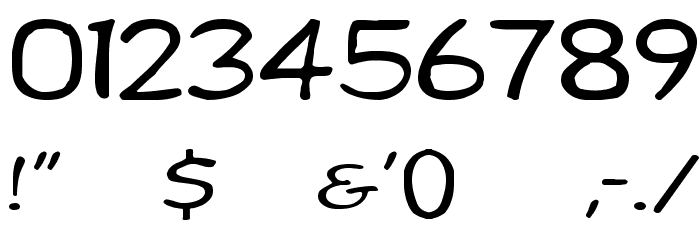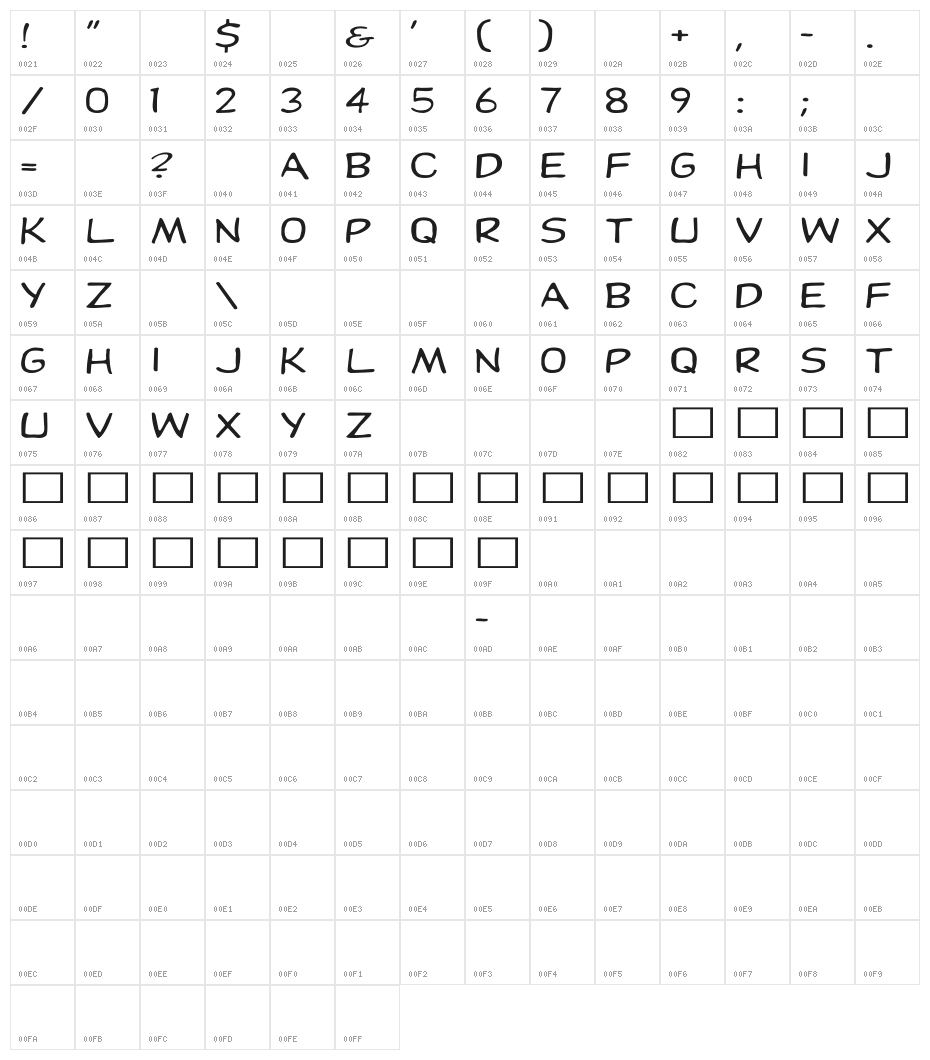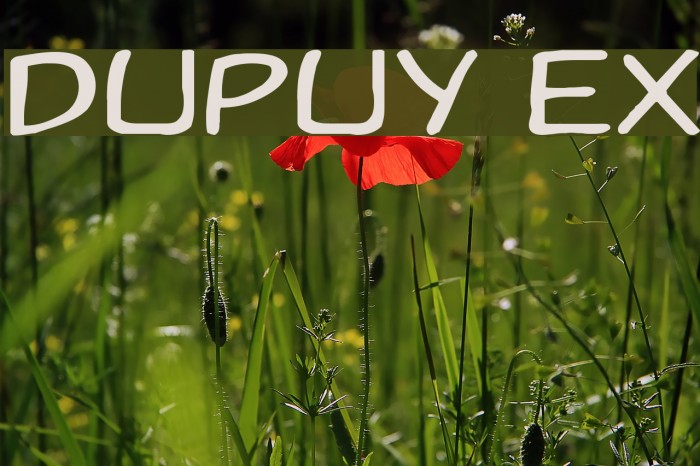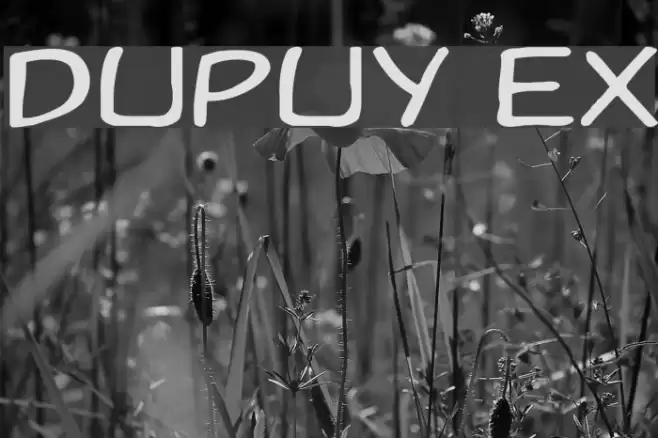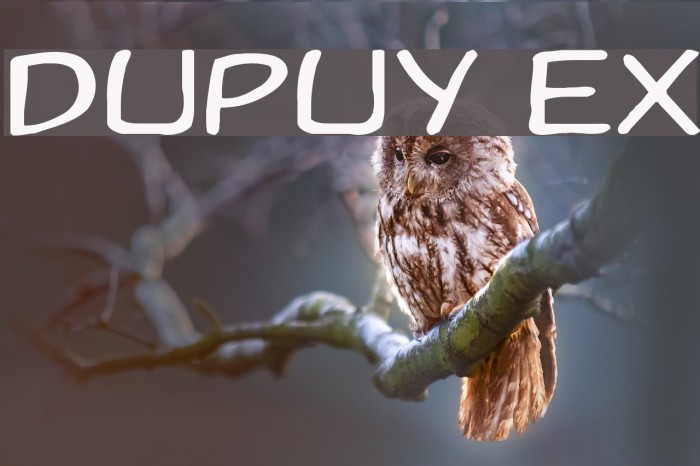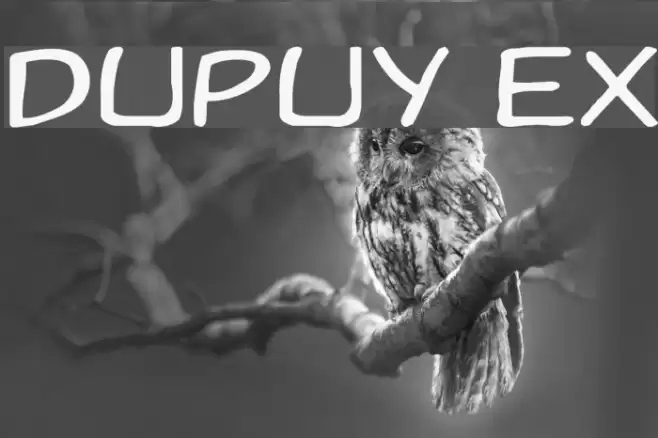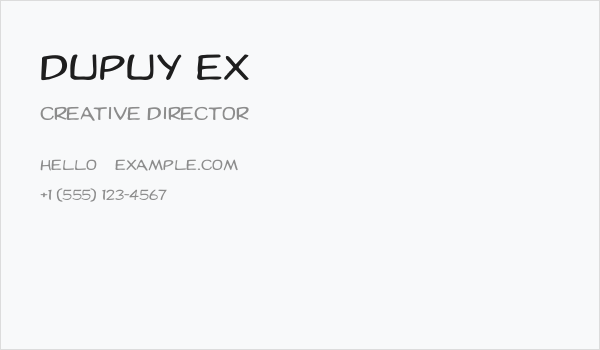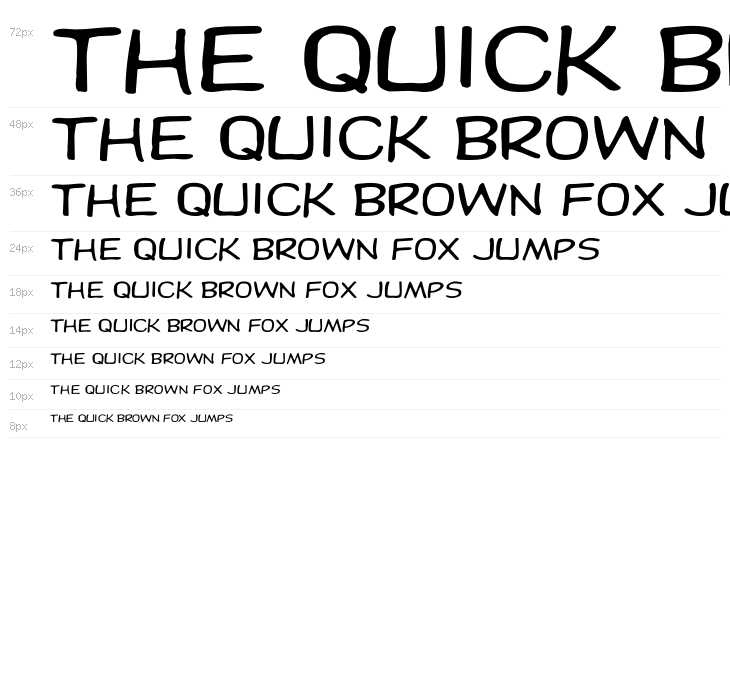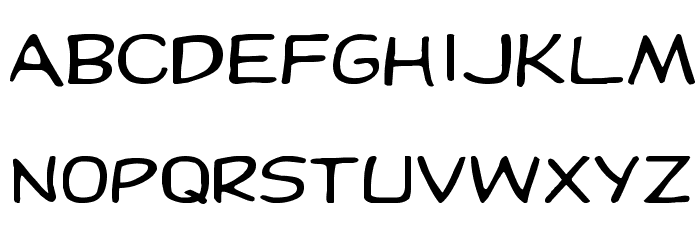
Dupuy Ex Font
Dupuy Ex Description
This font features a playful and casual handwritten style, characterized by its smooth curves and slightly irregular strokes. The letters are rounded and have a friendly appearance, making it suitable for informal and creative projects. The uppercase and lowercase letters maintain a consistent flow, while the numerals and special characters complement the overall design. The font's organic feel is enhanced by its moderate contrast in stroke thickness, providing a dynamic yet approachable look.
| Use Case | Logos, Posters, Informal Text |
| Proposed Projects | Ideal for greeting cards, children's books, playful branding, and creative posters. |